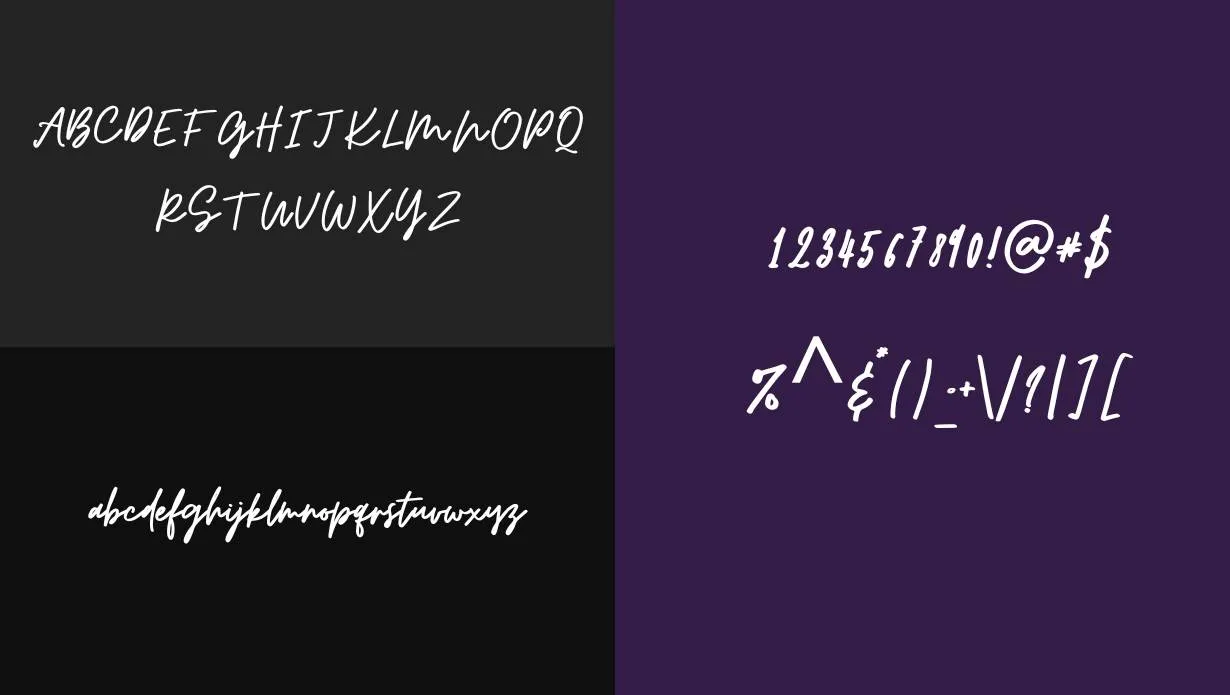
Osulent Signature Font is a graceful and flowing script typeface, capturing the elegance of a handwritten script.
Its cursive style is commonly used in upscale branding, wedding invitations, and designs that require a touch of sophistication. This font adds an element of grace and charm to your projects.
| Name | Osulent Signature Font |
| Designer | Modennta Seena |